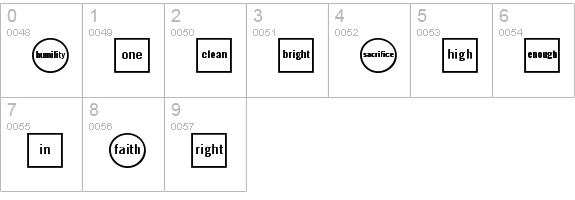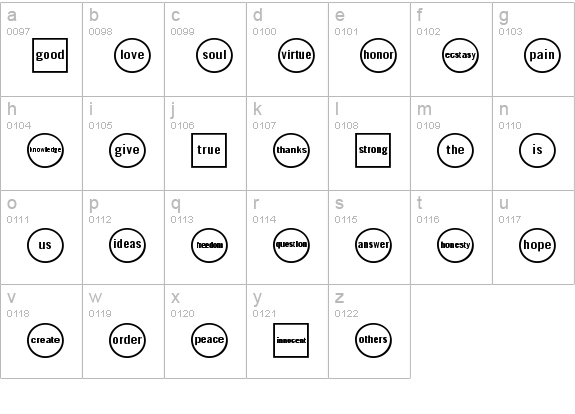
WhatTheHell Font Details
WhatTheHell font is a unique and captivating typeface that will leave a lasting impression on anyone who lays eyes on it. With its bold and edgy design, this font exudes a sense of rebelliousness and individuality. Each character is meticulously crafted to showcase its distinct personality, making it perfect for projects that demand attention and stand out from the crowd. Not only does WhatTheHell font possess a striking appearance, but it is also freely available to download at FontsMarket.com. This means that you can effortlessly enhance your designs without any cost or restrictions. Whether you're working on a personal project, designing for a client, or simply looking to spice up your creative endeavors, this font offers limitless possibilities. The versatility of WhatTheHell font is another reason why it has become a favorite among designers. It effortlessly adapts to various contexts, be it for headline text, logos, advertisements, or even social media graphics. Its clean lines and sharp edges give your designs a modern and contemporary feel, while still maintaining a touch of boldness and attitude. Downloading WhatTheHell font from FontsMarket.com is a breeze. Simply visit the website, find the font in the extensive collection, and click the download button. Once downloaded, you can easily install it on your computer or device, ready to be used in your favorite design software. So why settle for ordinary when you can unleash your creativity with WhatTheHell font? With its free availability and exceptional design, it's a font that will make a statement and elevate your projects to new heights. Experience the power and impact of WhatTheHell font today - download it now at FontsMarket.com and let your imagination run wild.